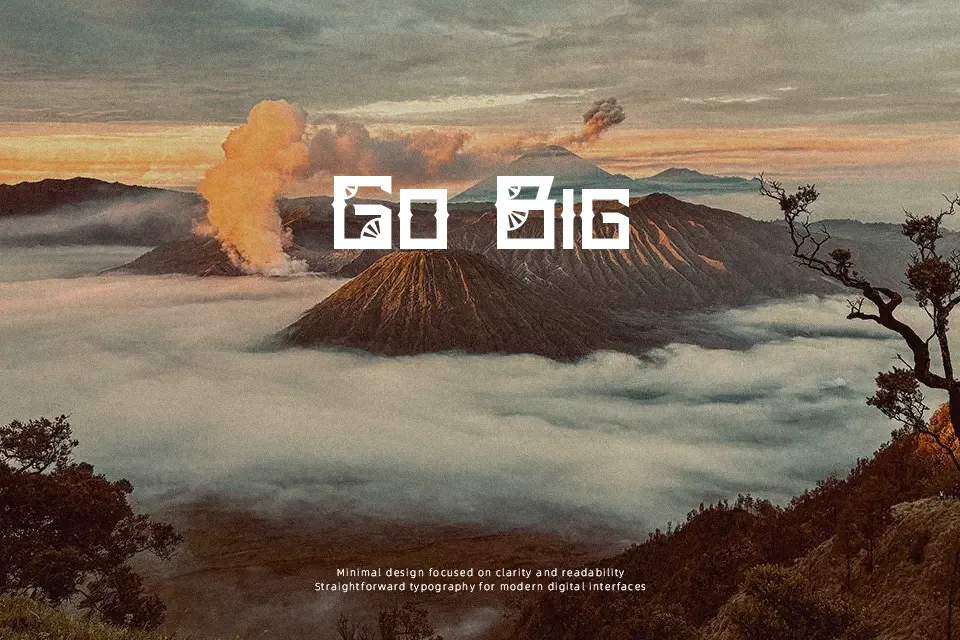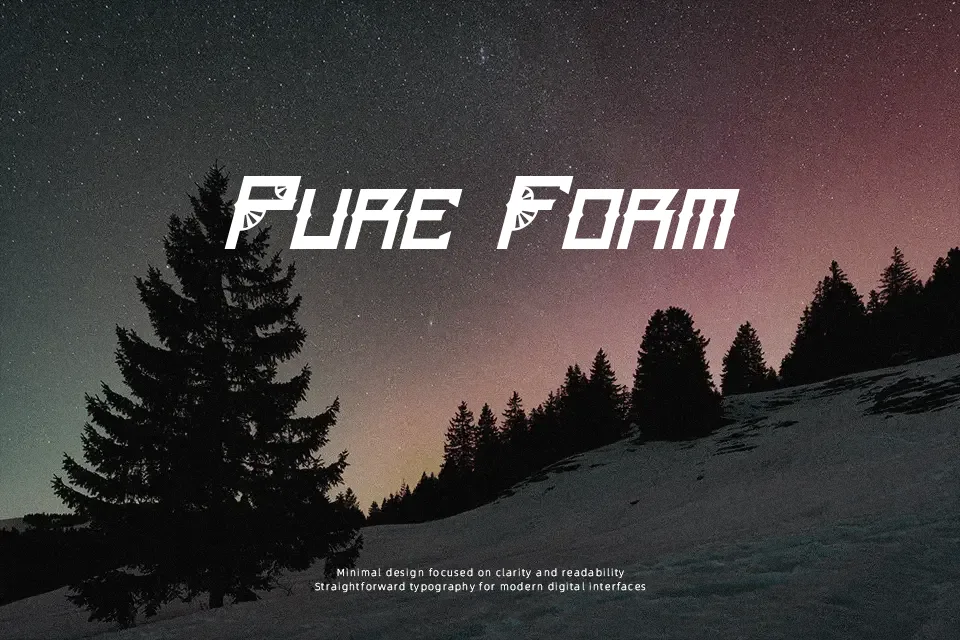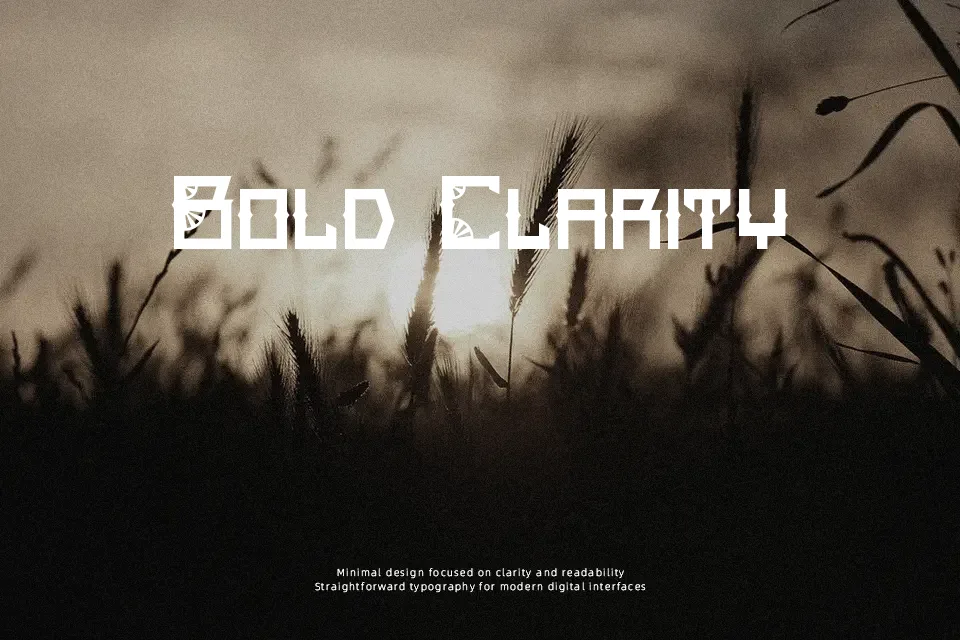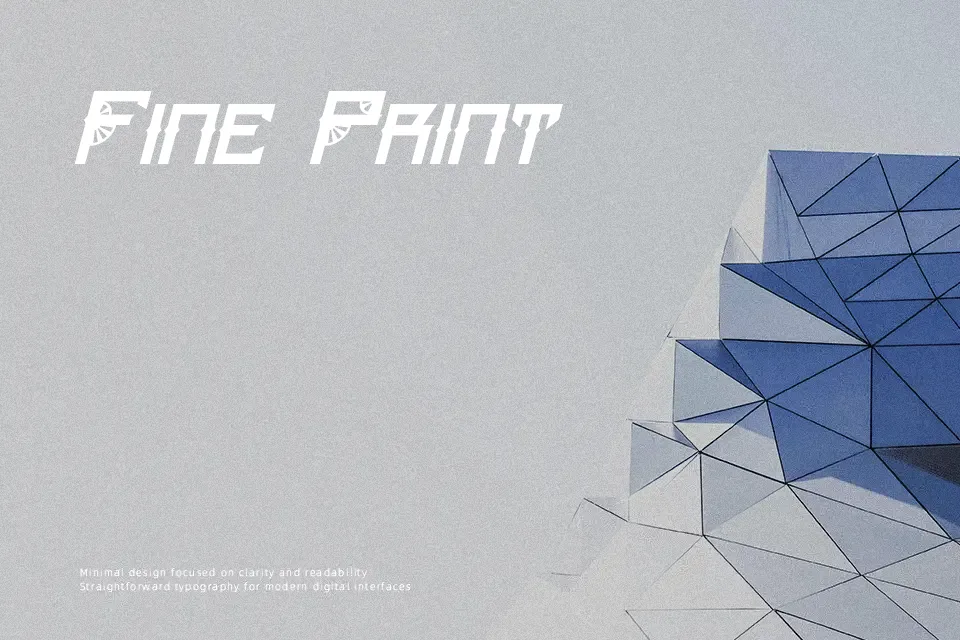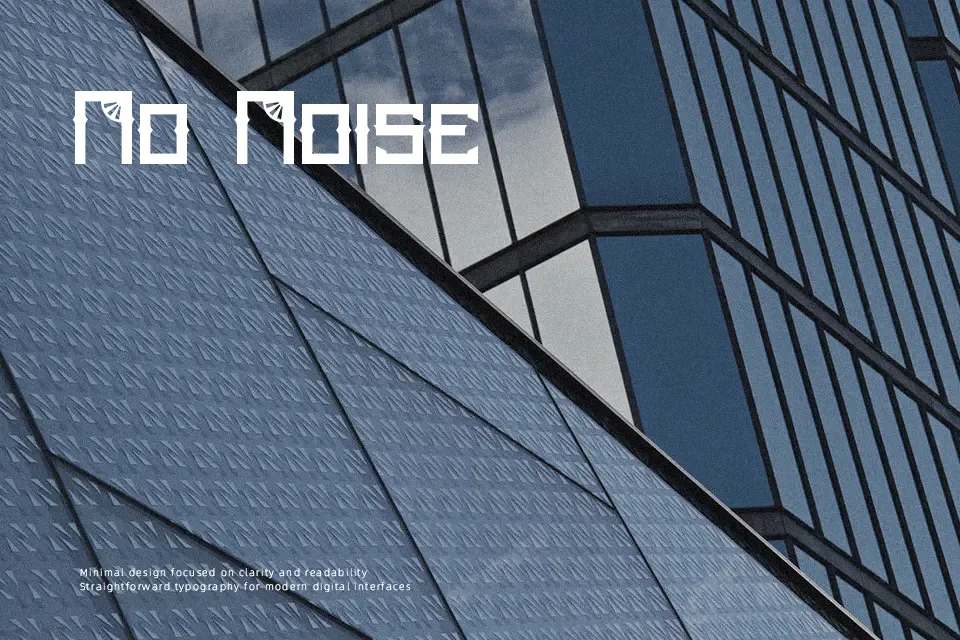
Steamwheel Font
Designed by Pixel Sagas
Steamwheel Font combines rigid square structures with intricate mechanical wheels set inside each capital glyph. The strokes maintain a uniform, heavy weight with sharp corners and industrial cutouts that evoke Victorian machinery. While the uppercase letters showcase complex decorative elements, the lowercase forms offer cleaner geometric silhouettes to preserve baseline consistency. Wide character widths and tight tracking give titles a solid, architectural presence across large formats. The dense inner detailing tends to blur at smaller text sizes, making the typeface less suitable for body paragraphs or compact labels. However, the bold construction delivers exceptional character in tabletop gaming titles, retro convention banners, and theatrical branding.
Best For: tabletop game packaging, steampunk event posters, escape room signage, retro book covers
Not Ideal For: long paragraph text, mobile interface body copy, spreadsheet data, technical manuals
Perfect for branding, gaming, and headline, with a bold and decorative style.